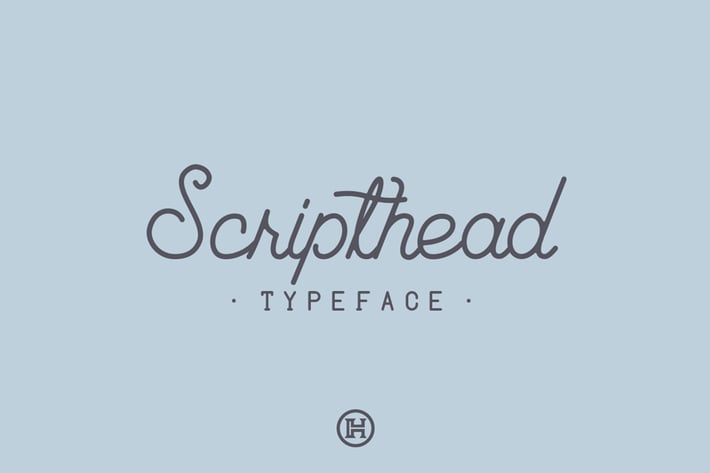
Scripthead Typeface|Lovely Script Font
Mihis_Design
Presenting SCRIPTHEAD, a two font pairing, with a mono-weight, monoline, cursive script and a complementary modern all caps sans-serif.
Scripthead is a hand-lettering font that is portraying warmth and creativity, while being slightly casual and informal, and still having an elegant touch. Scriphead has curved, rounded letter bodies, sophisticated decorative swashes for the uppercase and twisted spines, all these features resembling authenticity and a handwritten, effortless look. Scripthead`s complementary font is Scripthead Caps, which is a contrasting, yet compatible font with all caps, sans-serif characters. Scriphead Caps has simple, minimal letterforms with nicely balanced curves and consistent stroke thickness, making the simplest letters look warm and elegant. Scripthead has per each font, standard Latin characters set A-Z and numerals.
This pairing has a handmade feel and a elegant, personal touch, making it perfect for headlines, editorial uses, logos or wedding invitations and much more, including small articles and occasional texts.